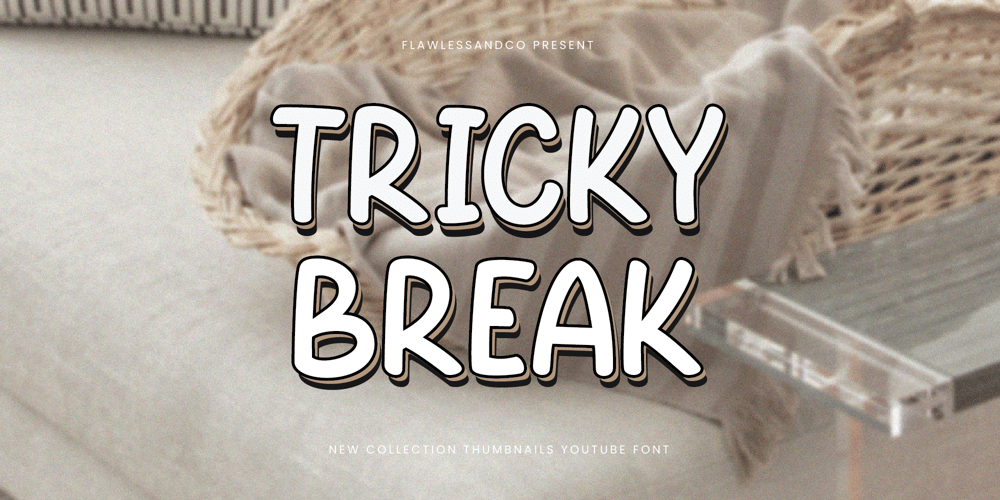
Tricky Break Font Family was designed by Achmad Yani and published by Flawlessandco. Tricky Break contains 1 styles and family package options. Introducing Tricky Break, a bold and captivating display font designed to make your YouTube thumbnails stand out from the crowd. This font suitable for any graphic designs such as branding materials, Thumbnails YouTube, video content, print, business cards, logos, posters, t-shirts, photography, quotes .etcThere’s some connected letters and some alternates that suitable for any graphic designs such as branding materials, t-shirt, print, business cards, logo, poster, t-shirt, photography, quotes .etcThis font support for some multilingual. Also contains uppercase A-Z and lowercase a-z, alternate character, numbers 0-9, and some punctuation.If you need help, just write me! Thanks so much for checking out my shop!